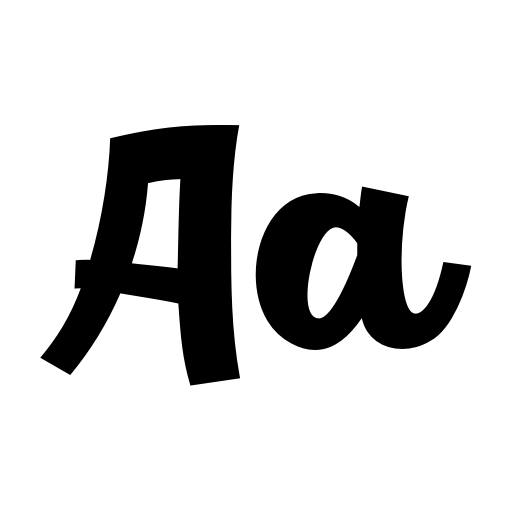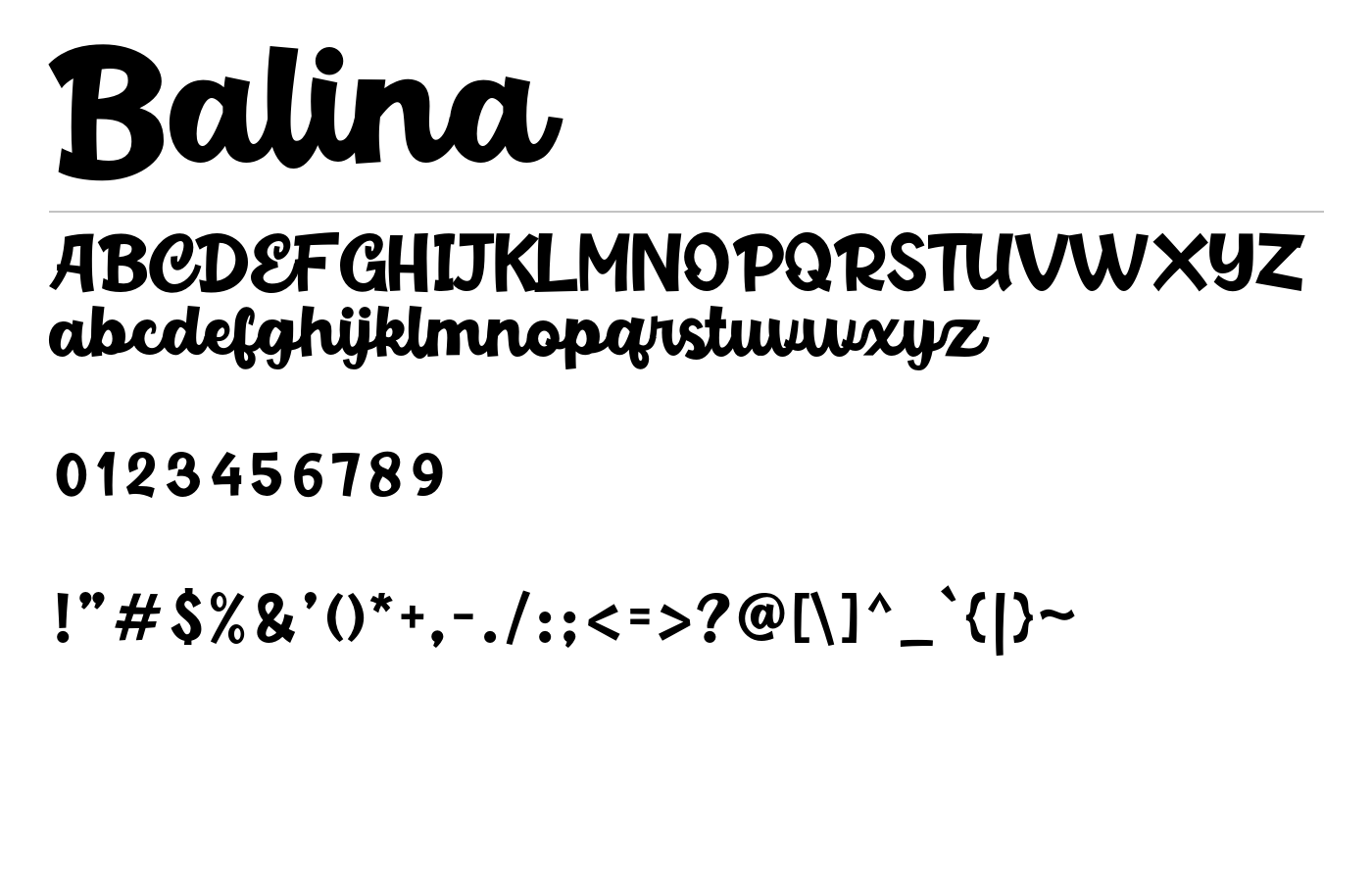
Balina is a playful and bold script-style font with strong, rounded letterforms that blend a casual yet confident personality. Its generous weight and medium contrast give it a friendly, approachable feel, while unique details like the swirled ampersand and varied uppercase shapes add character. Ideal for fun branding, headlines, and packaging, Balina works well where a lively and engaging tone is desired.
Balina Font